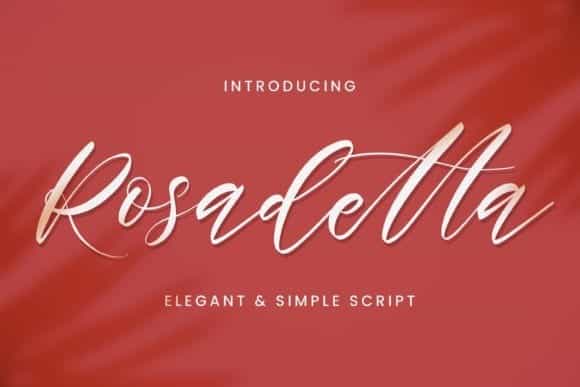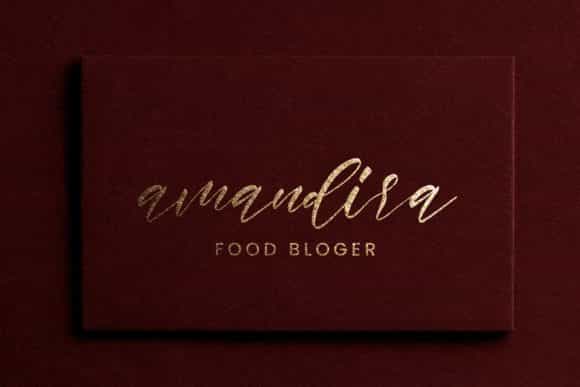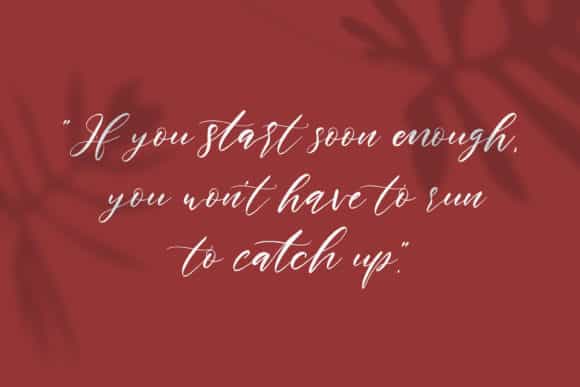
Rosadetta is a font created to bring a touch to your projects enhancing them with stunning designs. It features a script, for various purposes such as titles, logos, wedding invitations and more. Rosadetta Script includes OpenType features like Stylistic Alternates and ligatures to enhance your design and supports languages.